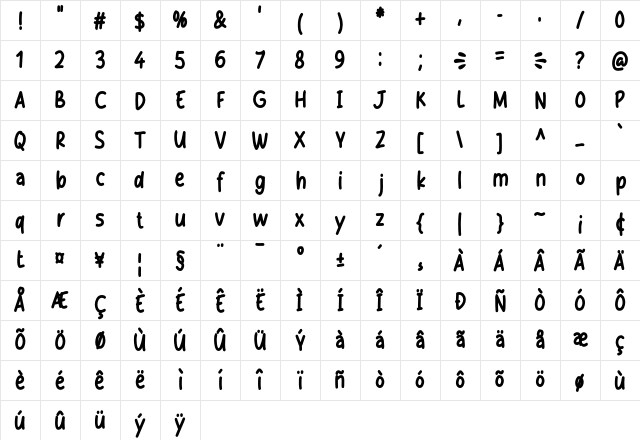
Complete Cheese Burger Regular glyph index. Displaying only characters natively supported by Cheese Burger Regular font.
Cheese Burger is a composed and adaptable typeface that performs quietly and consistently across a wide range of design contexts.